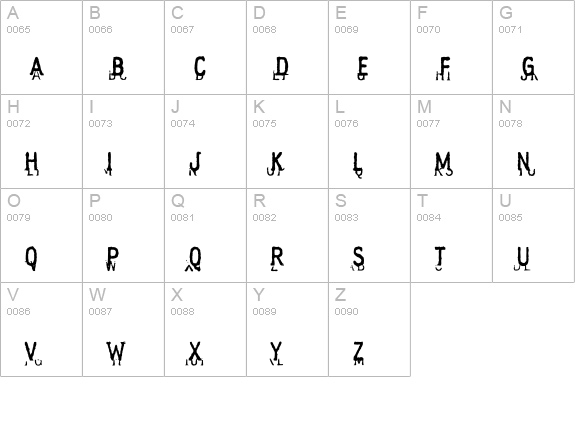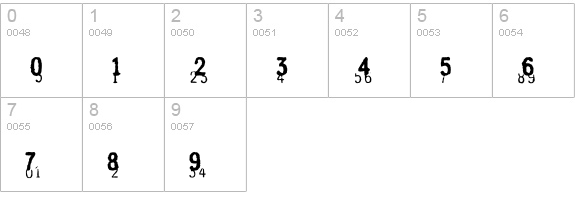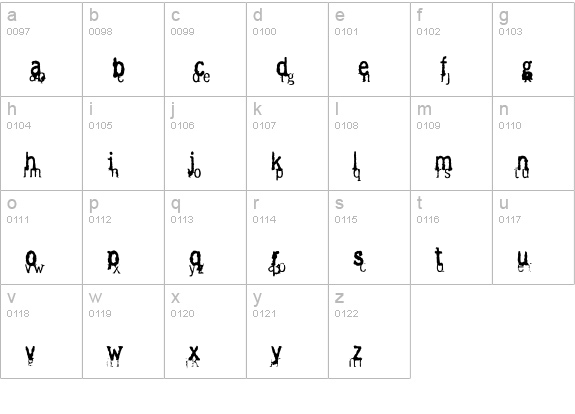
IndecisionLettered Font Details
IndecisionLettered font is a stunning display typeface that captures the essence of uncertainty and hesitation with its meticulously crafted letterforms. This unique font is perfect for projects that require a touch of whimsy and playfulness, while still maintaining an air of elegance and sophistication. Each letter in IndecisionLettered font is artfully designed, with delicate curves and intricate details that add depth and character to any text. The varying line weights and subtle imperfections in the strokes give the font a hand-lettered feel, adding a sense of authenticity and charm. IndecisionLettered font is versatile and can be used for a wide range of design projects, such as logos, branding, packaging, invitations, and more. Its distinct style is sure to make a lasting impression and stand out from the crowd. The best part? IndecisionLettered font is available for free download at FontsMarket.com. Whether you're a professional designer or a hobbyist, you can enjoy the benefits of this remarkable font without having to spend a dime. Simply head over to FontsMarket.com, and start using IndecisionLettered font in your next creative endeavor. Don't let indecision hold you back – embrace the unique charm and versatility of IndecisionLettered font. Download it for free today and add a touch of whimsy to your designs.